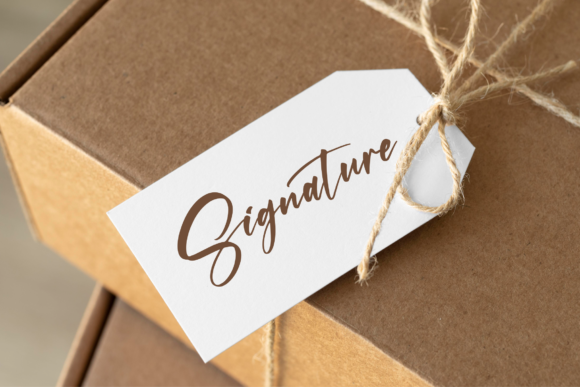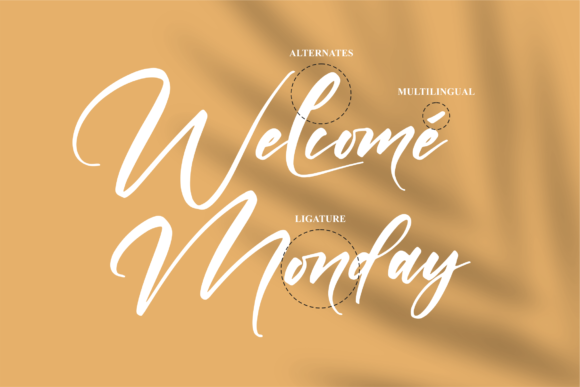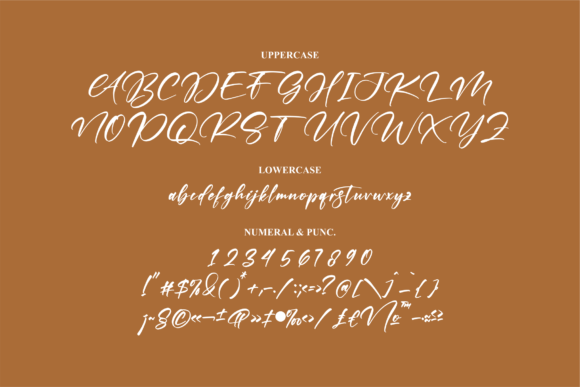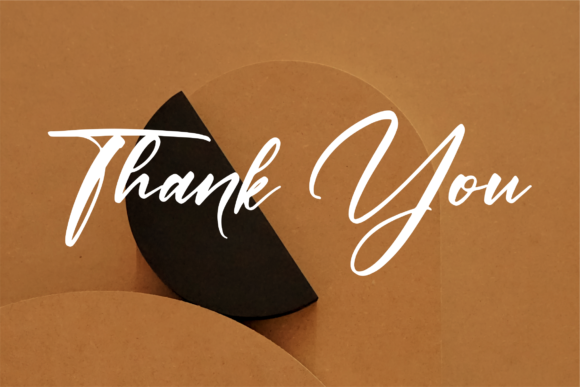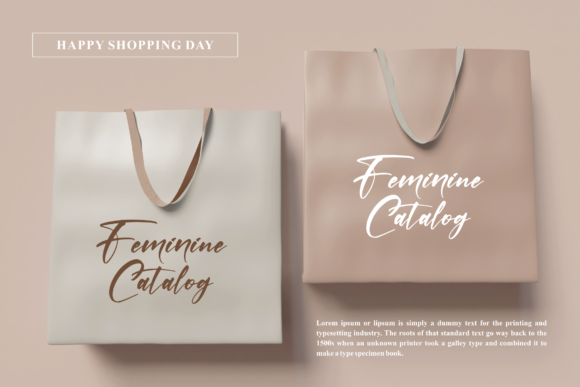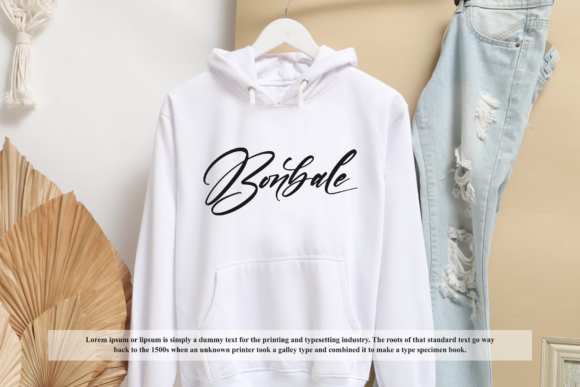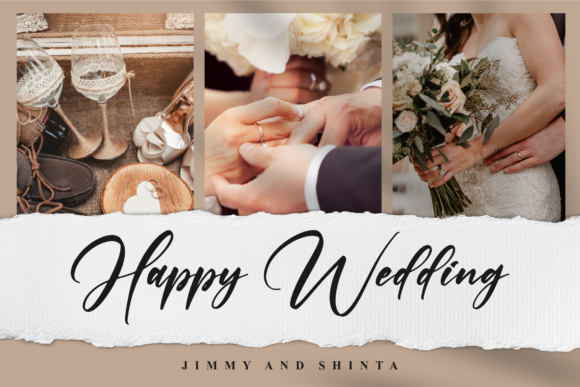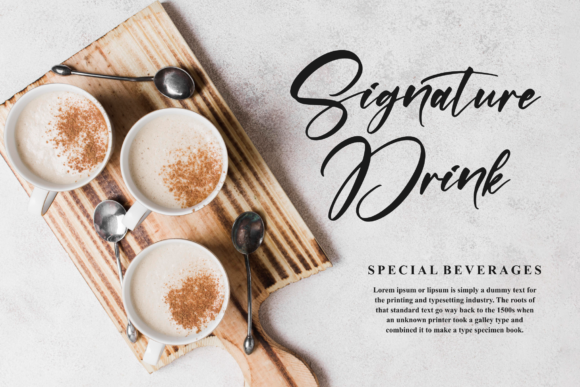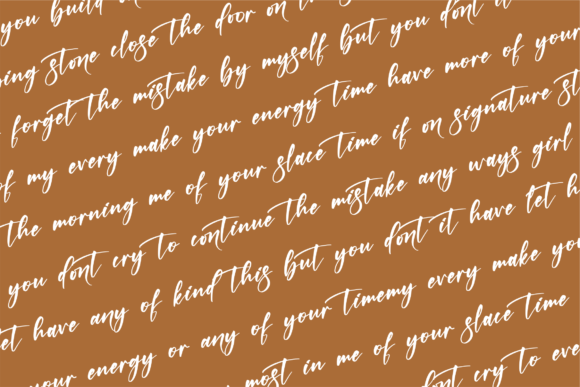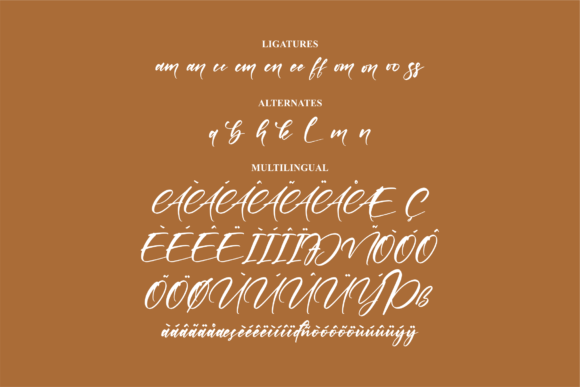
Bonbale Font
About Bonbale Font
Bonbale is a beautiful script font. It is suitable for various projects such as: logos, branding projects, homeware designs, product packaging, mugs, quotes, posters, shopping bags, t-shirts, book covers, and all your other lovely projects that need a beautiful taste.